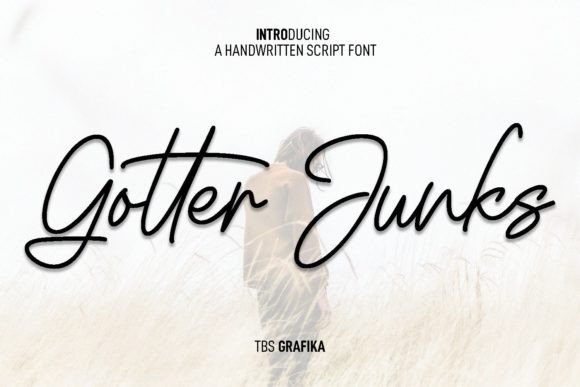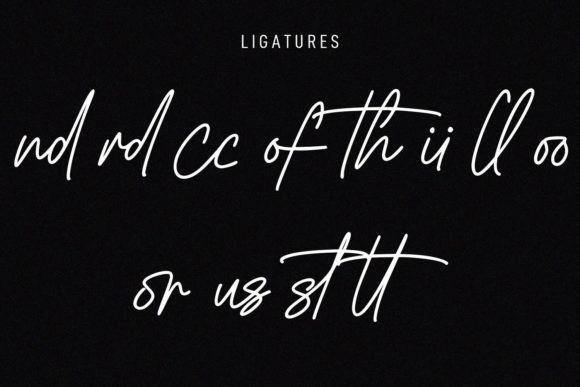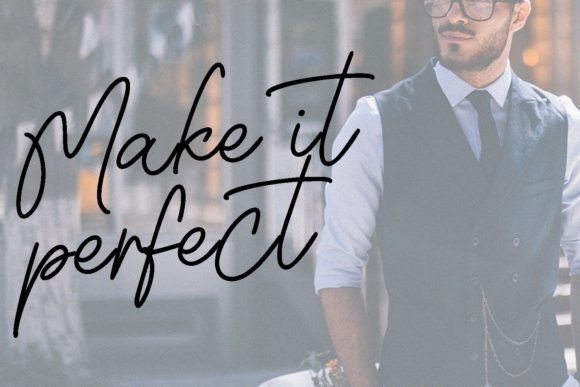
About Gotter Junks Font
Gotter Junks is not just a font; it’s a versatile tool that seamlessly blends casual charm with modern sophistication. This script font is a valuable addition to your fonts’ library, capable of enhancing any creation with its contemporary style and effortless appeal. Regardless of the topic or theme, Gotter Junks stands as a remarkable asset, ready to elevate your designs to new heights.
Imagine Gotter Junks in a casual setting, such as a friendly blog post or a laid-back social media graphic. Its relaxed and approachable characters create an instant connection with the audience, making the content feel engaging and relatable. Whether you’re sharing personal stories, lifestyle tips, or casual updates, this font adds a touch of friendliness, making your message feel like a conversation with a close friend.
In a more formal context, Gotter Junks maintains its charm and versatility. It works wonders in professional presentations, business documents, or corporate branding materials. Its modern script style injects a sense of freshness and creativity into these settings, ensuring that your content stands out and leaves a lasting impression on clients, colleagues, or partners.
Gotter Junks is also an excellent choice for creative projects, such as logo design, product packaging, or event invitations. Its contemporary flair adds a touch of elegance, making your designs visually appealing and memorable. Whether you’re crafting a logo for a trendy startup, designing packaging for a new product, or creating invitations for a stylish event, this font enhances the overall aesthetic, leaving a positive impact on the audience.
Moreover, Gotter Junks seamlessly integrates into various design applications, from posters and flyers to website headers and branding materials. Its versatility allows you to experiment with different layouts, color schemes, and graphic elements, enabling you to create visually striking compositions that capture attention and convey your message effectively.
In summary, Gotter Junks is a font that goes beyond the ordinary; it’s a powerful tool that elevates your creations with its casual yet modern appeal. Its versatility makes it suitable for a wide range of applications, making it a go-to choice for designers looking to add a touch of contemporary style to their projects. So, enrich your fonts’ library with Gotter Junks and unlock its potential to enhance any creation, leaving a lasting impression on anyone who experiences it.